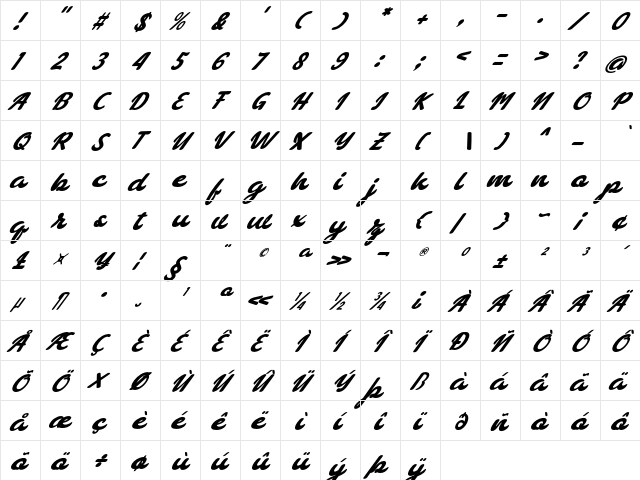
bellagia Regular
Design Context for bellagia Typeface
bellagia is a composed and adaptable typeface that performs quietly and consistently across a wide range of design contexts.